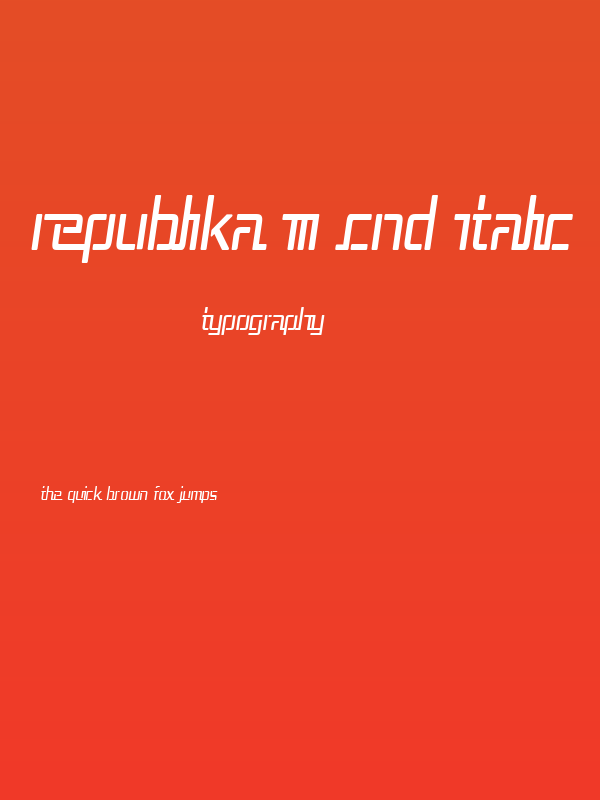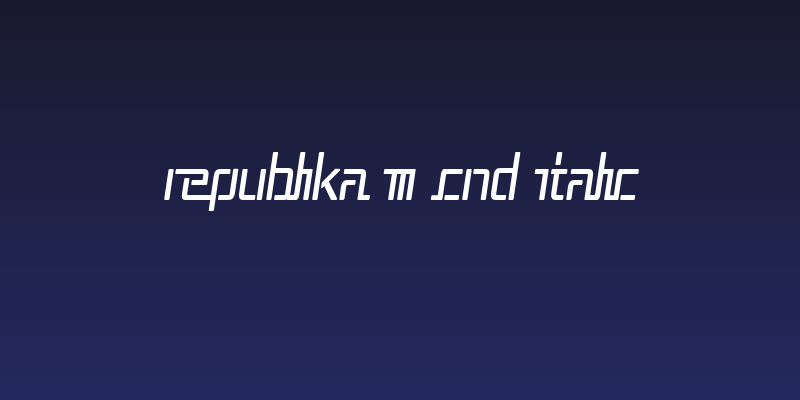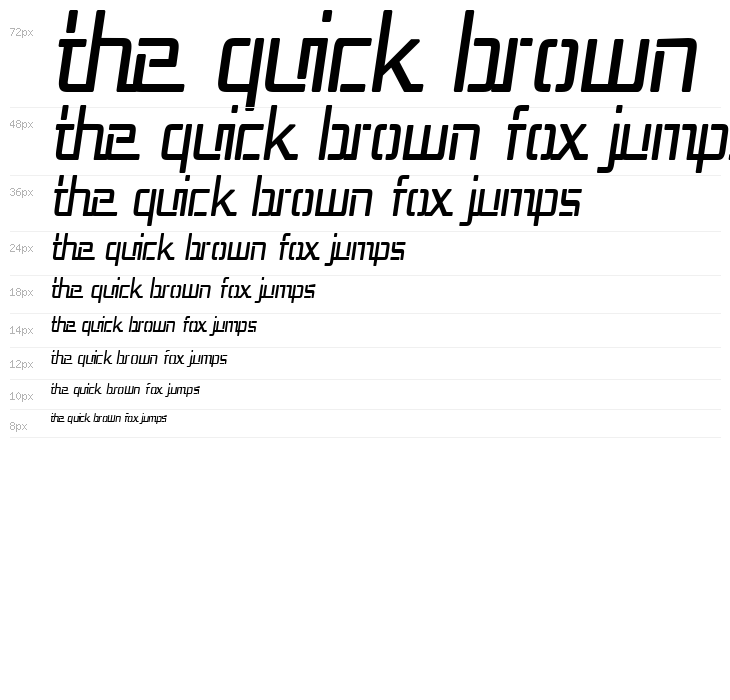
Republika III Cnd Italic Font
Republika III Cnd Italic Description
This font exhibits a modern, geometric style with a condensed and italicized form. The characters are sleek and angular, featuring a futuristic aesthetic. The design incorporates sharp edges and a consistent stroke width, giving it a uniform appearance. The italic slant adds a dynamic and forward-moving feel, making it suitable for contemporary and tech-oriented designs. The numerals and special characters maintain the same angular and streamlined look, ensuring consistency across all glyphs.
| Use Case | Headlines, Logos, Digital interfaces |
| Proposed Projects | Ideal for tech branding, modern advertising, futuristic posters, and digital interfaces. |